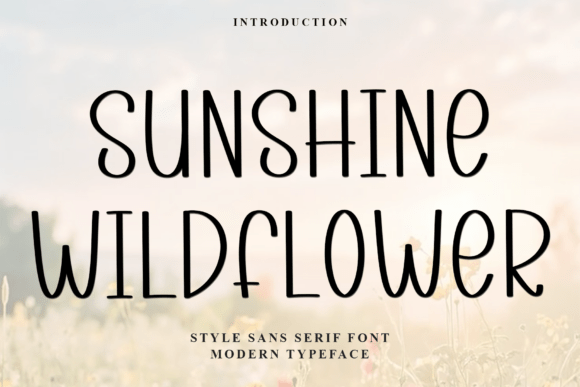
Sunshine Wildflower Font: Elevate Your Designs with a Touch of Nature
In the world of typography, fonts play a crucial role in conveying messages, expressing emotions, and creating a lasting impression. Among the numerous fonts available, the Sunshine Wildflower Font stands out for its unique and captivating design. This beautiful font is crafted with a soft, distinctive touch, making it an excellent choice for various creative projects. In this article, we’ll explore the features, benefits, and applications of the Sunshine Wildflower Font, and how it can elevate your designs to new heights.
What is Sunshine Wildflower Font?
Sunshine Wildflower Font is a meticulously designed font that boasts a soft, unique touch. Its distinctive strokes give it a special character, making it both meaningful and versatile for future use. This font is perfect for designers, crafters, and creatives looking to add a touch of nature to their work. With its wide range of characters, Sunshine Wildflower Font is ideal for various design projects, crafts, and other creative endeavors.
Key Features of Sunshine Wildflower Font
- Unique and Distinctive Design: The Sunshine Wildflower Font features a one-of-a-kind design that sets it apart from other fonts.
- Soft and Elegant Touch: The font’s soft and elegant strokes give it a warm and inviting feel.
- Versatile and Meaningful: The font’s distinctive character makes it both meaningful and versatile for various applications.
- Wide Range of Characters: The font comes with a wide range of characters, making it perfect for diverse design projects.
Benefits of Using Sunshine Wildflower Font
The Sunshine Wildflower Font offers numerous benefits for designers, crafters, and creatives. Some of the advantages of using this font include:
- Enhance Your Designs: The Sunshine Wildflower Font can elevate your designs, making them more appealing to a wide range of audiences.
- Perfect for Creative Projects: The font is ideal for various creative projects, including crafts, posters, brochures, and more.
- Time-Saving: With its wide range of characters, the Sunshine Wildflower Font can save you time and effort in creating custom designs.
- Cross-Platform Compatibility: The font’s compatibility with various applications ensures seamless integration with your design workflow.
Applications of Sunshine Wildflower Font
The Sunshine Wildflower Font is a versatile font that can be used in various applications, including:
- Graphic Design: The font is perfect for graphic design projects, such as logos, posters, and brochures.
- Crafts: The Sunshine Wildflower Font is ideal for craft projects, including handmade cards, scrapbooking, and more.
- Digital Art: The font can be used in digital art projects, such as illustrations, paintings, and more.
- Advertising: The font’s unique design makes it perfect for advertising materials, including billboards, flyers, and more.
Why Choose Sunshine Wildflower Font?
With numerous fonts available, why should you choose the Sunshine Wildflower Font? Here are some reasons to consider:
- Unique Design: The Sunshine Wildflower Font features a unique design that sets it apart from other fonts.
- High-Quality: The font is crafted with high-quality strokes, ensuring a professional finish.
- Versatile: The font is versatile and can be used in various applications and projects.
In conclusion, the Sunshine Wildflower Font is a beautiful and eye-catching font that can elevate your designs to new heights. Its unique and distinctive design, soft and elegant touch, and versatility make it an excellent choice for various creative projects. With its wide range of characters and compatibility with various applications, this font is perfect for designers, crafters, and creatives looking to add a touch of nature to their work. Whether you’re working on graphic design projects, crafts, digital art, or advertising materials, the Sunshine Wildflower Font is an excellent choice.